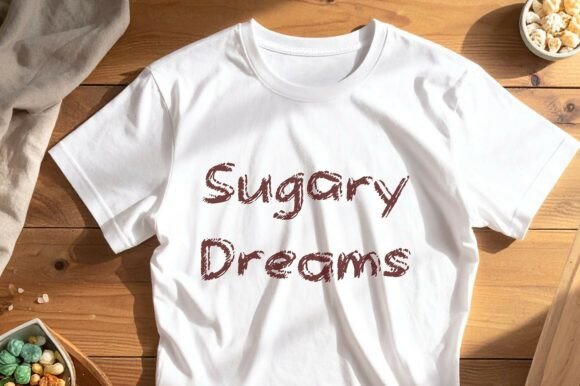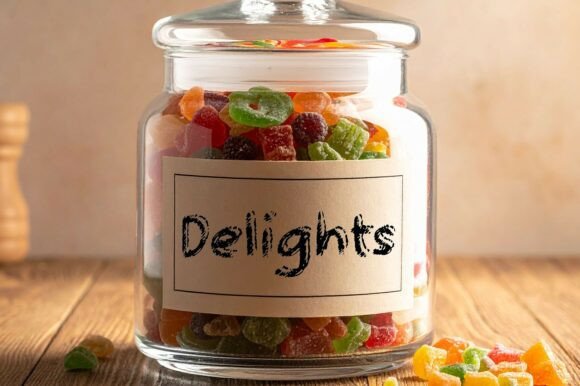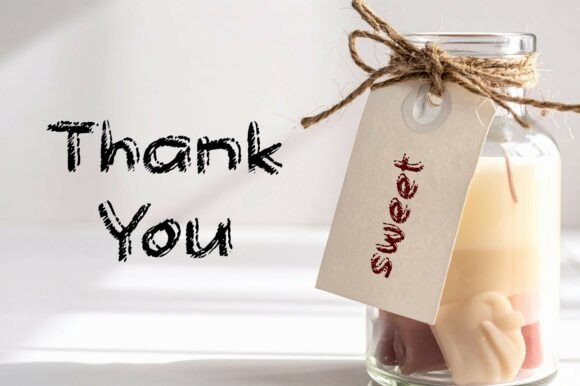
Introducing Aromanis Font: A Delightful and Whimsical Script Font
Are you looking for a font that can add a touch of handmade sweetness to your designs? Look no further than Aromanis, a charming script font that is sure to delight. With its bouncy, slightly uneven letterforms and playful, brush-like texture, Aromanis is the perfect choice for designers and crafters who want to convey a sense of nostalgia and homespun charm.
The Characteristics of Aromanis Font
Aromanis font features a unique and endearing quality that is reminiscent of sugary confections or a joyful, spontaneous scribble. Its friendly and approachable style makes it perfect for conveying warmth and deliciousness, making it an excellent choice for branding and packaging in the confectionery industry, artisanal foods, cozy cafes, and more.
Some of the key characteristics of Aromanis font include:
- Bouncy, slightly uneven letterforms that give it a playful and whimsical feel
- A playful, brush-like texture that adds to its handmade charm
- A complete set of uppercase and lowercase letters, numerals, and essential punctuation
- A friendly and approachable style that evokes a sense of nostalgia and homespun charm
Uses for Aromanis Font
Aromanis font is ideally suited for projects that require a cheerful, inviting, and slightly rustic tone. Some examples of projects that Aromanis font would be perfect for include:
- Branding and packaging in the confectionery industry, such as labels for ‘Sugary Dreams’ t-shirts or ‘Delights’ jars
- Artisanal foods, such as specialty jams, honey, or baked goods
- Cozy cafes or bakeries that want to create a warm and inviting atmosphere
- Any creative work that aims for a homemade, delightful, and heartfelt appeal, such as greeting cards or invitations
Tips for Using Aromanis Font
Here are a few tips for using Aromanis font in your designs:
- Use Aromanis font as a title font to add a touch of whimsy and personality to your designs
- Pair Aromanis font with a simpler font to create a nice contrast and add visual interest
- Experiment with different colors and textures to enhance the handmade charm of Aromanis font
- Don’t be afraid to get creative and have fun with Aromanis font – it’s perfect for projects that require a playful and imaginative approach
Why Designers and Crafters Love Aromanis Font
Designers and crafters love Aromanis font for its unique and endearing quality. Here are a few reasons why:
- Aromanis font is perfect for creating a sense of nostalgia and homespun charm in designs
- Its playful and whimsical feel makes it perfect for projects that require a cheerful and inviting tone
- Aromanis font is easy to read and understand, making it perfect for use in a variety of design applications
- Its handmade charm makes it perfect for crafters and makers who want to add a personal touch to their designs
In conclusion, Aromanis font is a delightful and whimsical script font that is perfect for designers and crafters who want to add a touch of handmade sweetness to their designs. With its bouncy, slightly uneven letterforms and playful, brush-like texture, Aromanis font is sure to delight. Whether used for branding and packaging, artisanal foods, or creative projects, Aromanis font is the perfect choice for anyone looking to convey a sense of nostalgia and homespun charm.